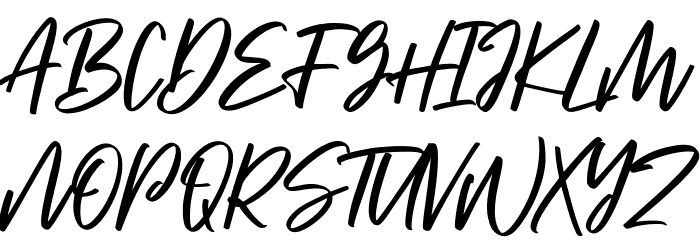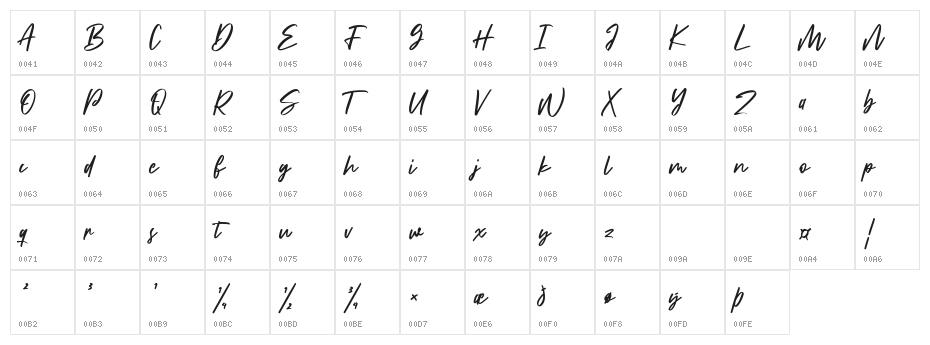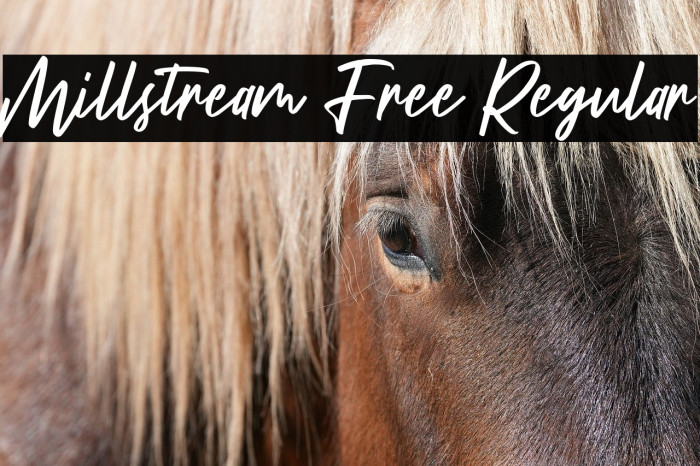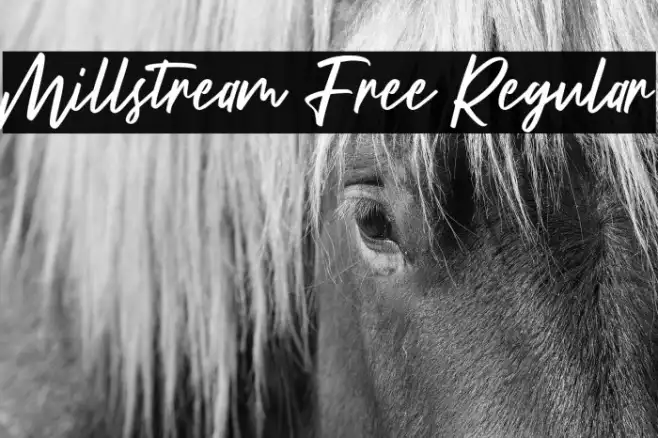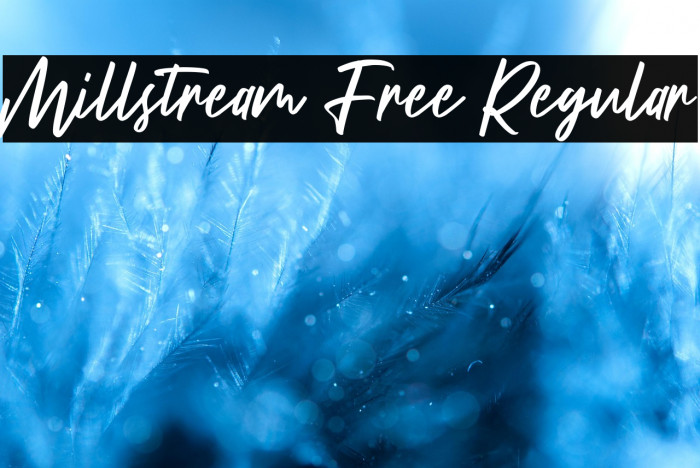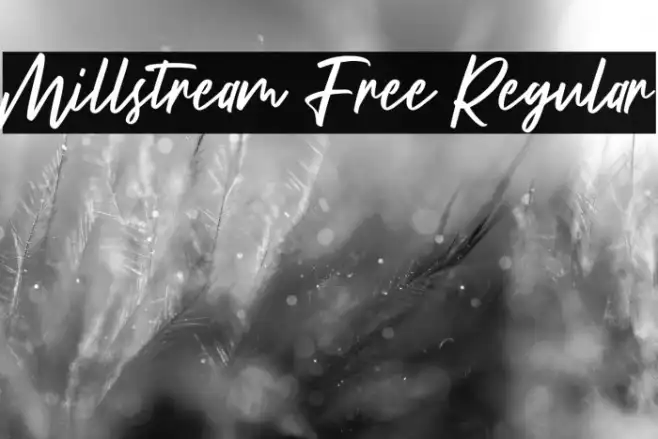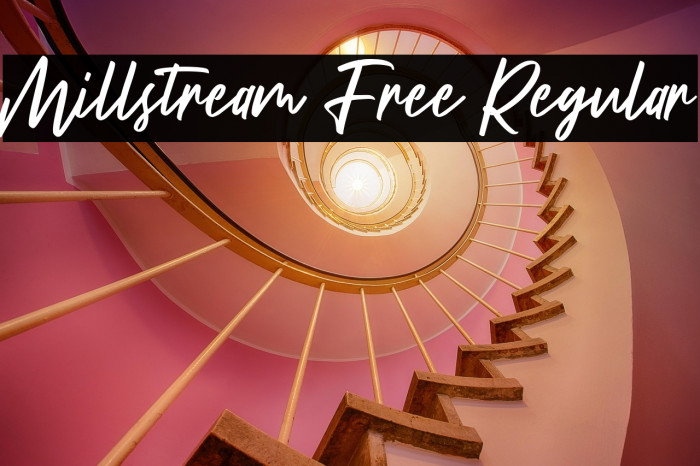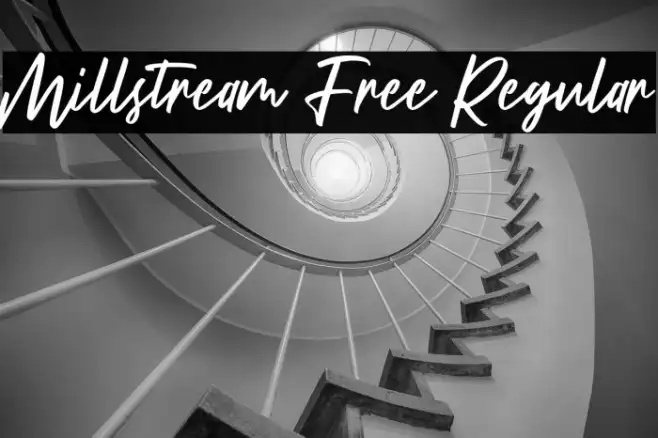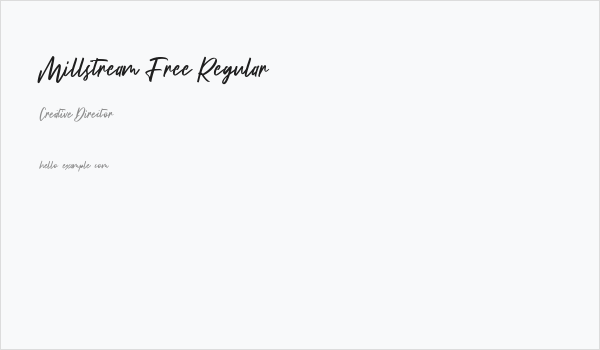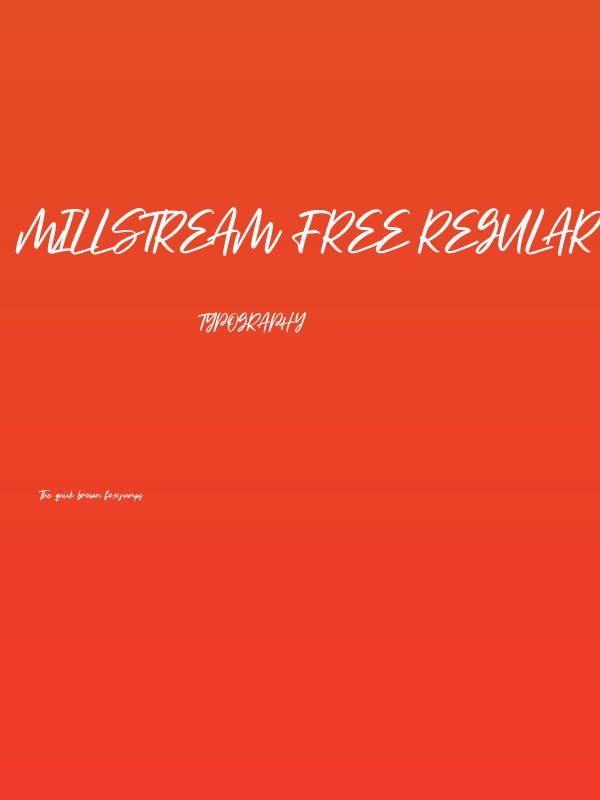
Millstream Free Regular Font
Millstream Free Regular Description
This font features a dynamic and energetic script style, characterized by its fluid, handwritten appearance. The letters are connected with smooth, flowing strokes, giving it a natural and personal touch. The uppercase letters are bold and prominent, while the lowercase letters maintain a consistent flow, enhancing readability. The overall design is modern and stylish, making it suitable for various creative applications. The font's playful yet elegant nature makes it versatile for both casual and formal contexts.